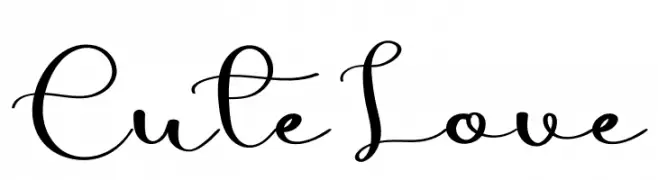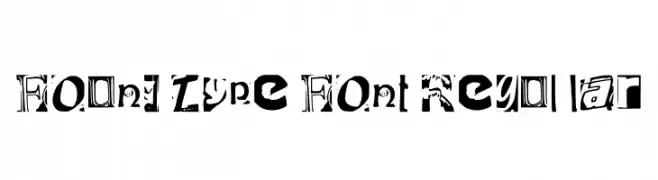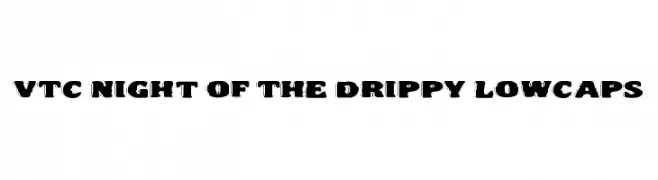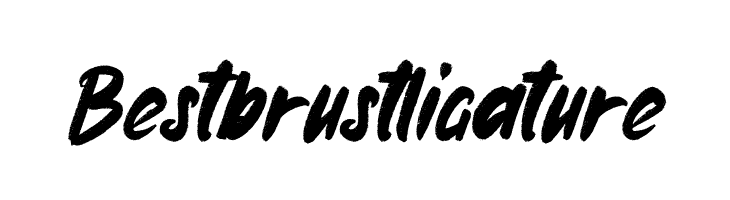
A bold, expressive handwritten font with fluid, dynamic strokes.
A bold, distressed font with a grunge texture for an edgy, urban look.
A playful and romantic script font with elegant curves and whimsical swirls.
A modern, light sans-serif font with low contrast and slightly condensed width.
A decorative and eclectic font with unique, artistic character designs.
A bold, dripping font with a playful, liquid-like appearance.
A festive, decorative font with stars and stripes, perfect for holiday themes.
A cursive, italic font with a flowing, elegant style.
A dynamic, cursive font with fluid strokes and a signature-like style.